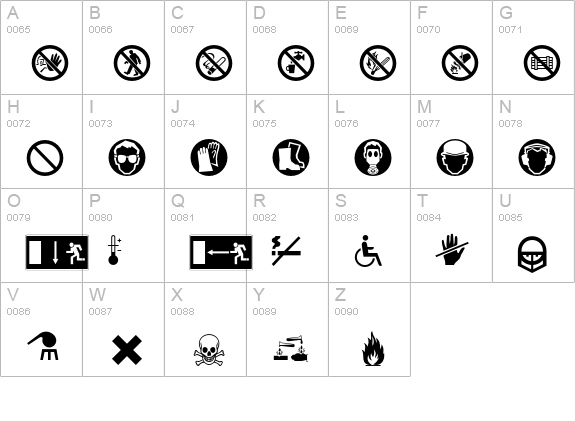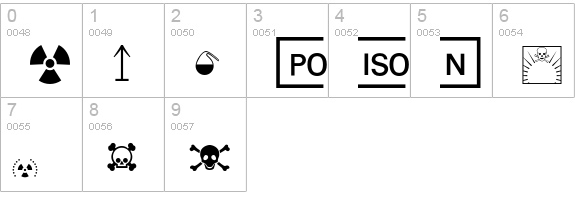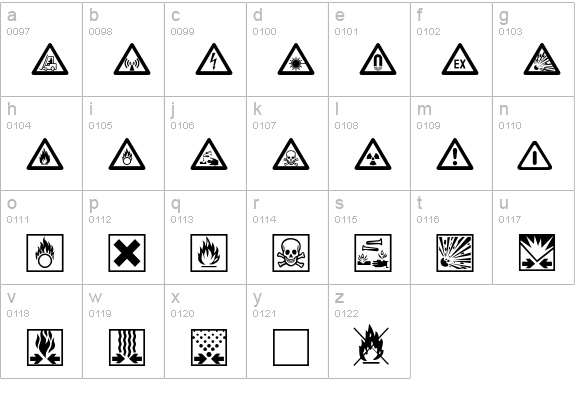
Warning LH Pi Font Details
Warning LH Pi font is a unique and eye-catching typeface that is perfect for adding a touch of boldness to your designs. This font features a distinctive style with sharp edges and a futuristic vibe, making it stand out from the crowd. Whether you're designing a poster, logo, or website, Warning LH Pi font will surely make a lasting impression. What makes this font even more appealing is the fact that it is completely free. Yes, you heard that right! You can download Warning LH Pi font for free at FontsMarket.com. This means that you can use this amazing font without any restrictions or limitations, allowing you to unleash your creativity to its fullest potential. Warning LH Pi font is not only visually striking, but it is also highly versatile. It can be used in a variety of design projects, from edgy and modern to retro and vintage. Its bold and commanding presence makes it perfect for headlines, titles, and attention-grabbing elements. The characters in Warning LH Pi font are meticulously designed, ensuring a seamless and professional look in your designs. The sharp edges and clean lines give this font a sense of precision and sophistication. Additionally, the font is available in a wide range of weights and styles, allowing you to experiment and find the perfect fit for your project. So why wait? Download Warning LH Pi font for free at FontsMarket.com and elevate your designs to new heights. Whether you're a graphic designer, web developer, or simply someone who loves typography, this font is a must-have in your collection. Unleash your creativity and make a bold statement with Warning LH Pi font.